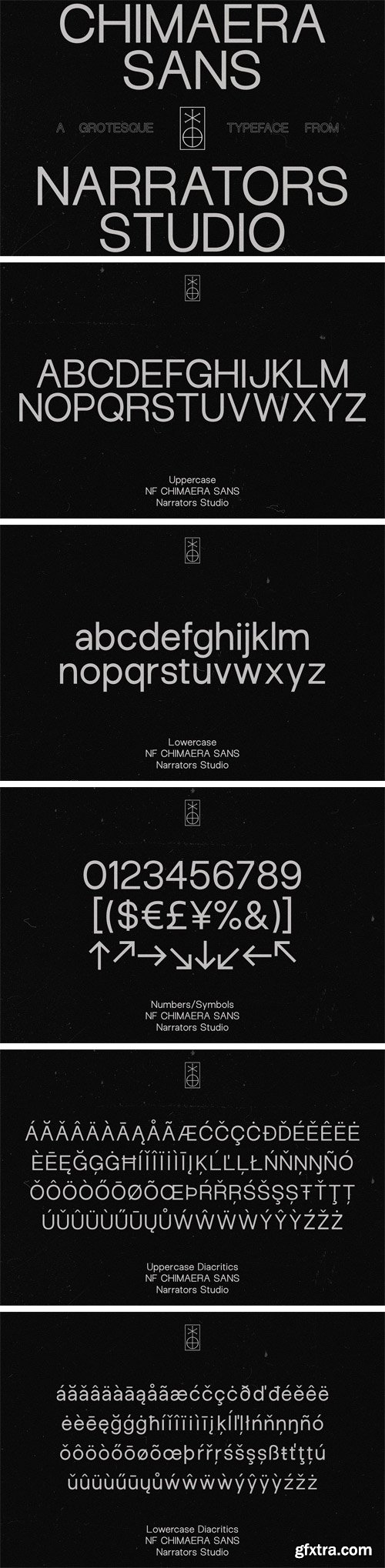
NF Chimaera was born out of a need for a workhorse typeface to replace Helvetica, something flexible enough we could use it on anything while still retaining enough character to be instantly recognizable. After looking around at various type styles, we settled on a grotesque as a balance between purity of the letterform and aggressiveness of its simplicity - there is a reason designers often choose grotesques in creating minimal or brutalist works.
It needed to work well on the page and on the screen (we use it on our new website), in large display sizes or smaller body sizes. NF Chimaera is the result, and we are confident it will serve you well no matter what you design or who you're designing for. The process of drawing each letter was an exercise in finding the right balance between simplicity and personality. Chimaera does not want to fade into the background like many grotesque sans-serifs, but subtly influences the design in its own way.